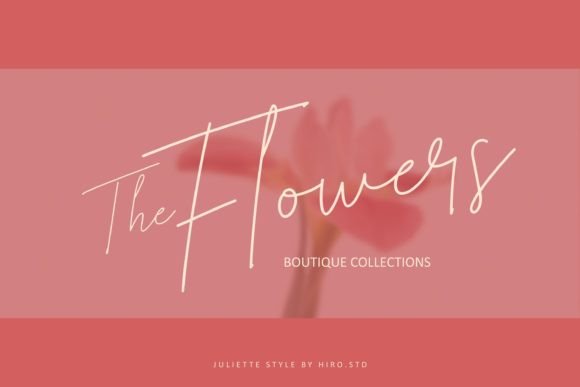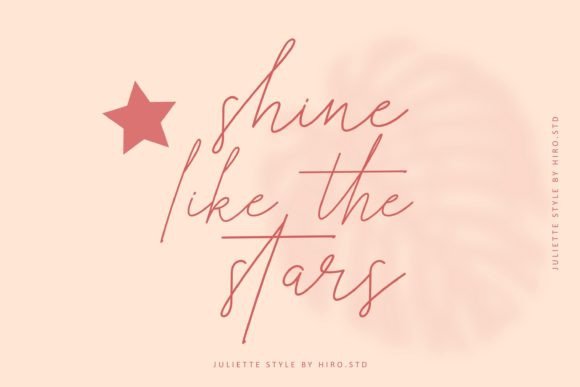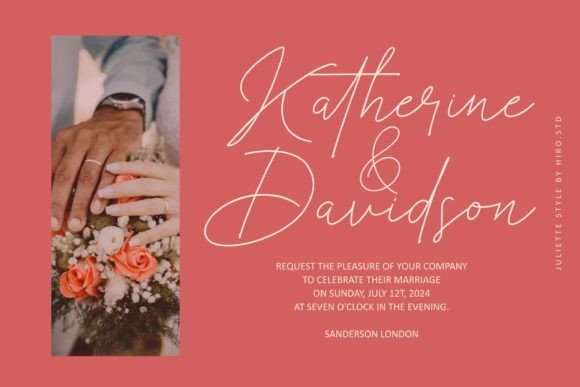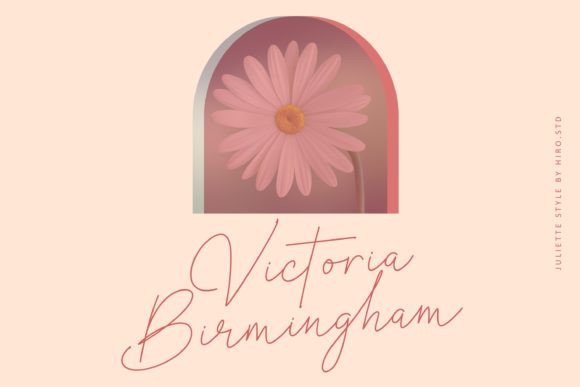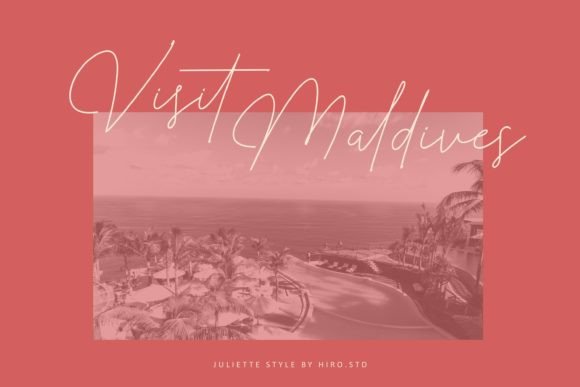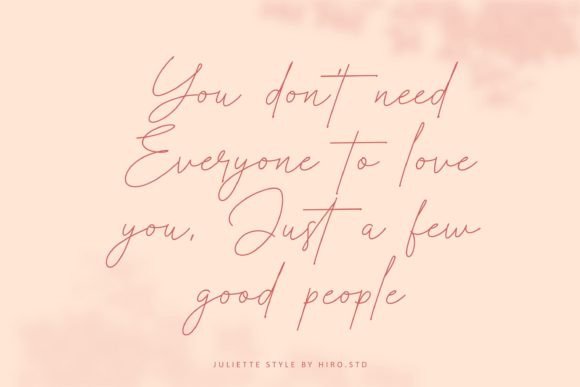
Introduction to Juliette Style Font
Juliette Style is a stylish handwritten font that blends elegance with a personal touch.
Its fluid, graceful strokes, and sophisticated character make it perfect for chic branding, elegant invitations, and fashionable editorial designs Enhance your projects with the refined beauty and charm of Juliette Style.
Key Features of Juliette Style Font
Why Choose Juliette Style Font?
Juliette Style Font offers exceptional quality and versatility, making it a valuable addition to your design toolkit. Whether you’re creating for personal projects or commercial use, Juliette Style Font delivers professional results.